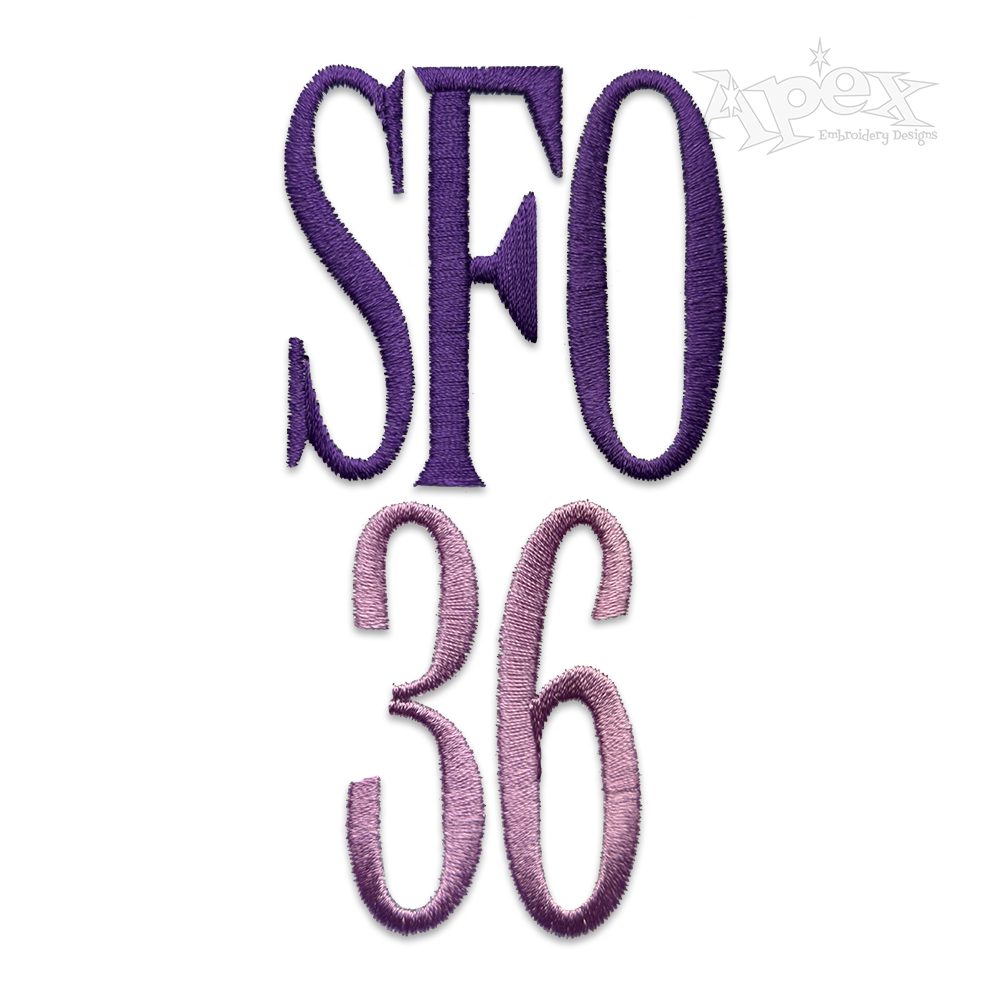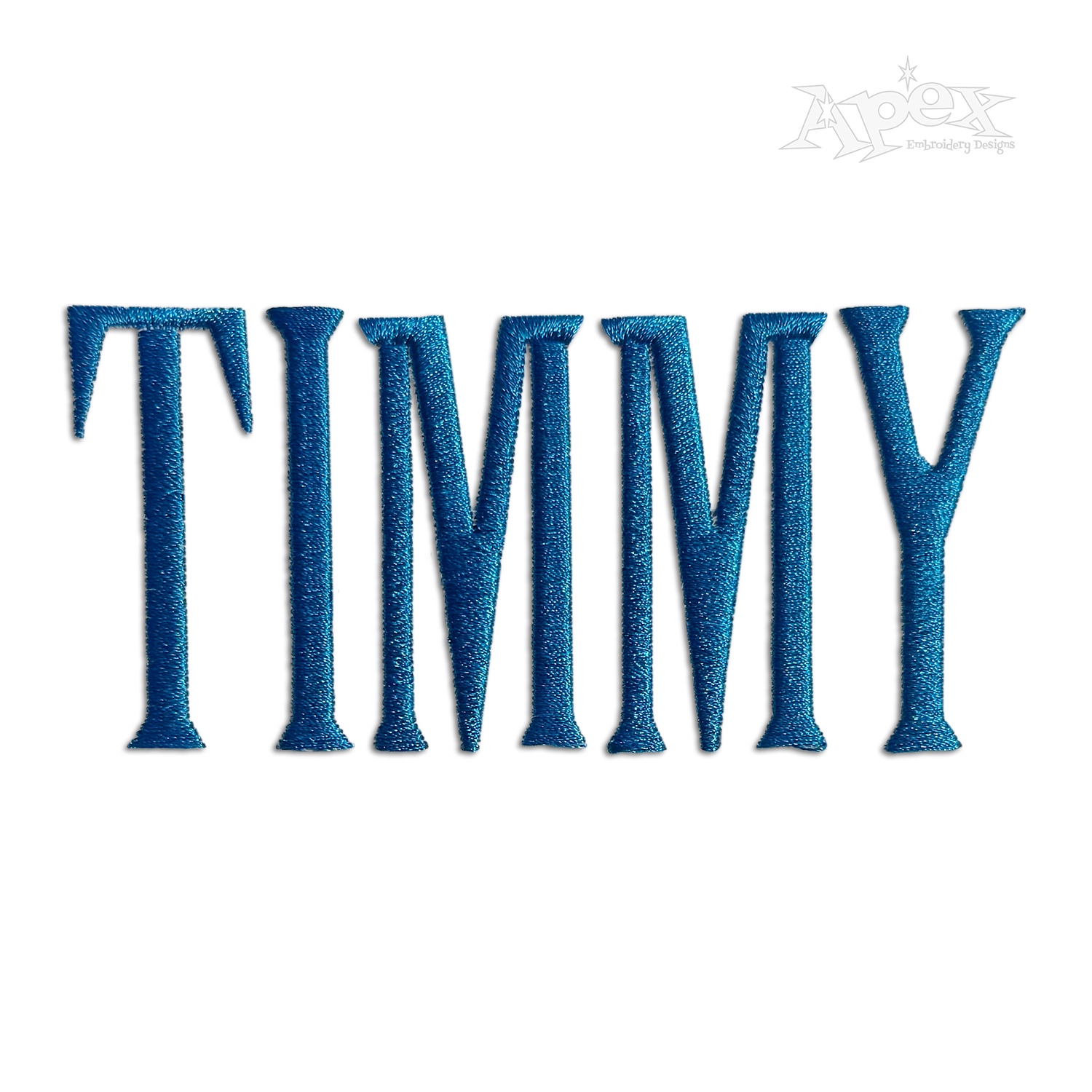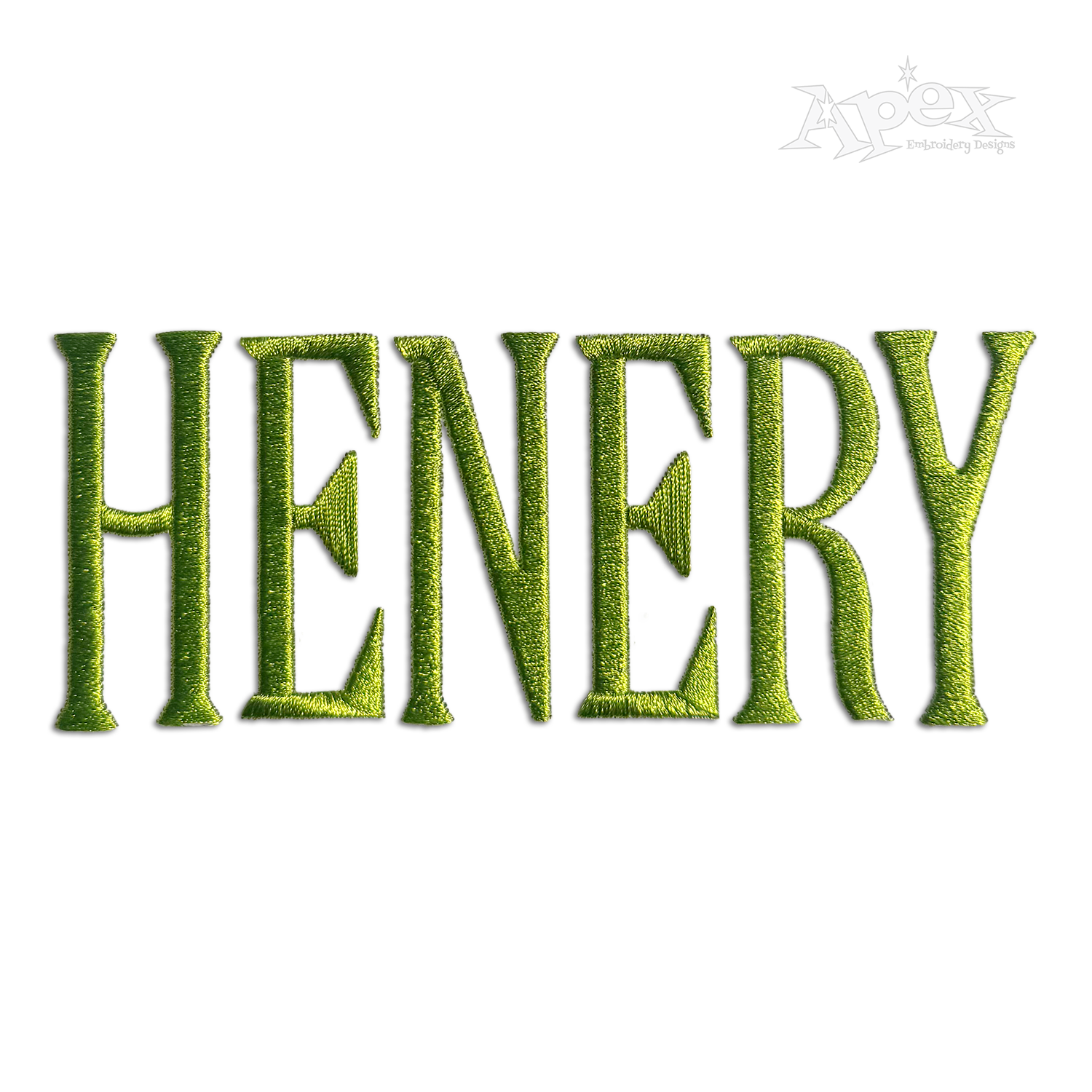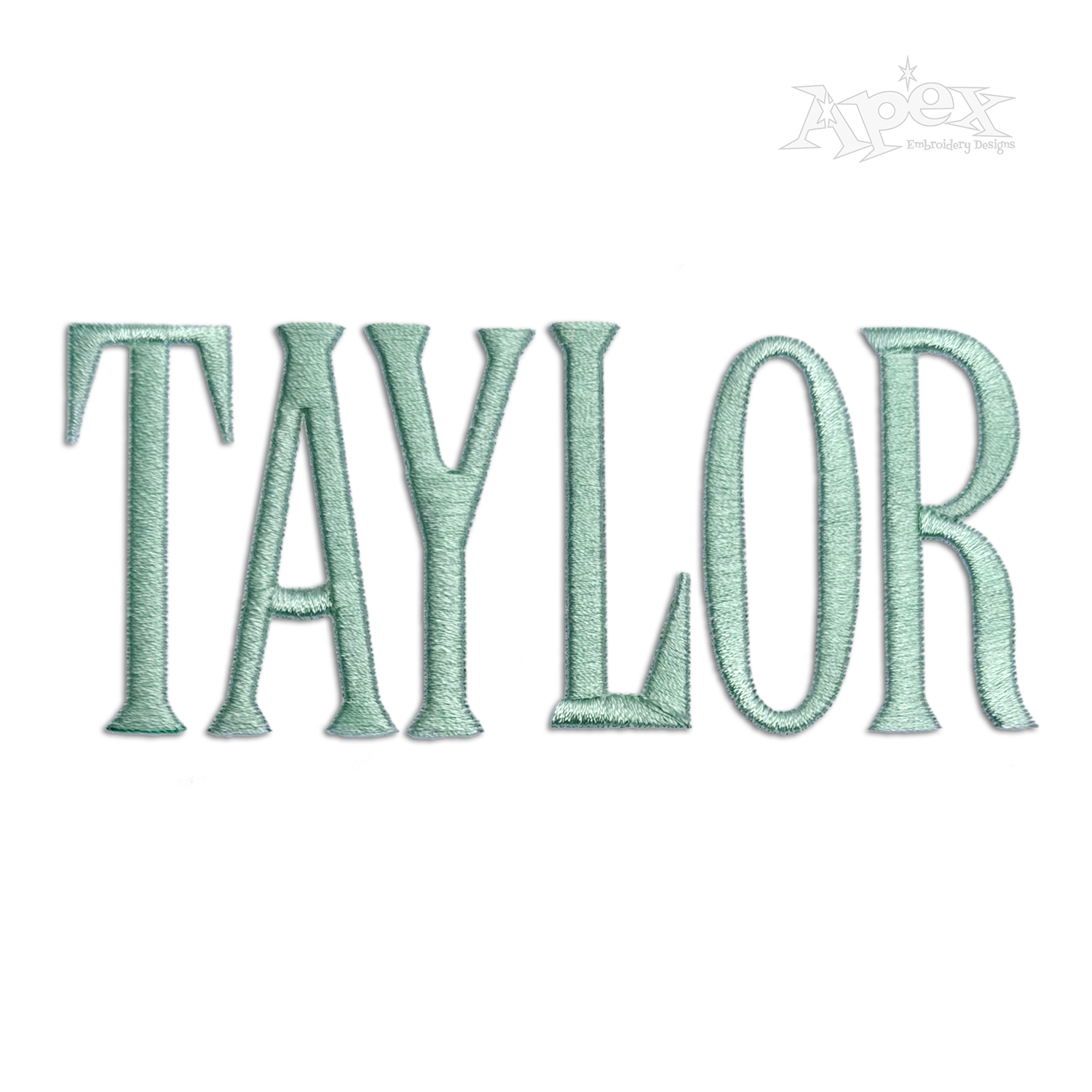
Narrow Mouse Embroidery Font
Born from an appreciation for understated mid-century haberdashery and classical bookbinding, the Narrow Mouse Embroidery Font balances slender proportions with undeniable architectural strength. In digitizing this collection, we sought to capture the refined, tailored poise of a bespoke gentleman’s monogram—clean, upright, and purposefully compact. Its sleek verticality allows longer initials or commanding single-letter statements to sit comfortably in narrow spaces without sacrificing presence, rendering every embroidered initial in crisp, pristine relief that feels both traditional and effortlessly modern.
Project Ideas for Narrow Mouse Embroidery Font
The tailored silhouette of Narrow Mouse makes it exceptionally versatile for sophisticated heirloom embroidery and personalized gifting:
- Gentleman’s Haberdashery: Stitch bespoke three-letter monograms onto custom dress shirt cuffs, tailored jacket linings, silk pocket squares, and fine linen handkerchiefs.
- Luxury Table Linens: Elevate crisp cotton or hemstitched linen cocktail napkins with tailored, understated initials for formal dinner parties.
- Executive Travel Goods: Monogram heavyweight canvas weekender bags, garment carriers, golf towels, and structured dopp kits.
- Heirloom Bedding: Frame crisp pillow shams and duvet flanges with minimalist, elongated monograms that add tailored hotel luxury to the master suite.
- Personalized Gifts: Create enduring keepsakes on plush waffle robes, cashmere throws, and leatherette desk accessories.
Thanks to its slender footprint, Narrow Mouse thrives in placements where standard-width fonts often overwhelm:
- Shirt Cuffs & Collar Tips: Center the letters 1 inch above the cuff edge or discretely along the collar point for classic bespoke shirting detail.
- Left Chest & Pockets: Position a single 2-inch initial or stacked monogram 7 to 9 inches down from the shoulder seam, perfectly centered over the pocket line.
- Corner Diagonals: Angle individual letters diagonally 1.5 to 2 inches from the hemmed point of cocktail napkins and pocket squares for classic symmetry.
- Center Banding: Align initials horizontally across the center stripe of luggage straps, duffel bags, or the wide band of bath sheets.
Narrow Mouse Embroidery Font Craft & Letterform Details
The beauty of Narrow Mouse lies within its deliberate restraint and digitized nuance. Rather than relying on heavyweight fills, each letterform utilizes slender, elongated satin columns anchored by sharp, razor-thin serifs that terminate with absolute clarity. We mapped the underlay stitch architecture specifically to reinforce the elongated upright strokes, ensuring that narrow columns never sink into pique knits or textured linens. Every corner turn and serif intersection is calculated to prevent bulky thread build-up, maintaining a flat, mirror-smooth satin finish that catches ambient light with quiet luxury. It is an embroidery font engineered for thread lovers who understand that true sophistication whisper rather than shouts.